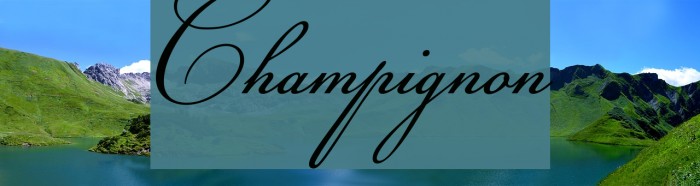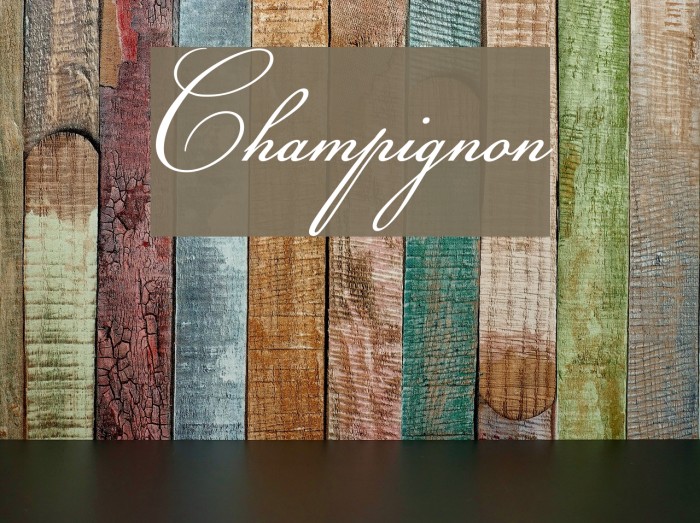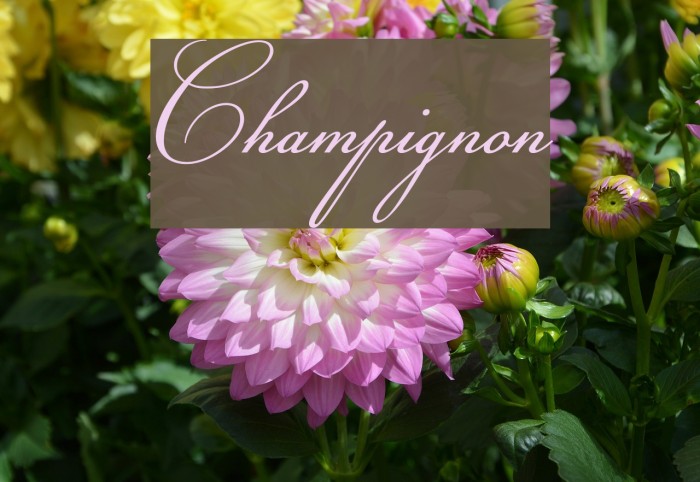
Champignon Font
✎ Script
Champignon Description
This elegant script font features flowing, cursive letterforms with intricate swashes and flourishes. The uppercase letters are particularly ornate, with loops and curves that add a touch of sophistication and grace. The lowercase letters maintain a consistent style, offering a smooth and connected appearance that enhances readability while retaining a decorative flair. The numerals are designed with a similar elegance, featuring slight curves and a balanced weight. The special characters complement the overall style, maintaining the font's cohesive and refined look. This font is ideal for projects that require a touch of elegance and sophistication.
| Overall Style | Elegant, Decorative |
| Use Case | Logos, Invitations, Branding |
| Proposed Projects | Ideal for wedding invitations, elegant branding, luxury packaging, and formal event materials. |